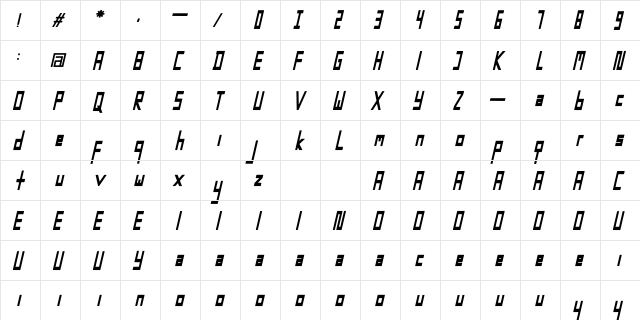
Smart Sport Regular
Design Context for Smart Sport Typeface
Smart Sport has the bold swagger of sports branding: strong, assertive letterforms designed to dominate headlines and jerseys alike.
Built for sports team identities, athletic apparel, event posters, and high-energy promotional material.
Pro Tip: Smart Sport thrives on contrast — try it large, bold, and tight against a clean background for maximum visual impact.